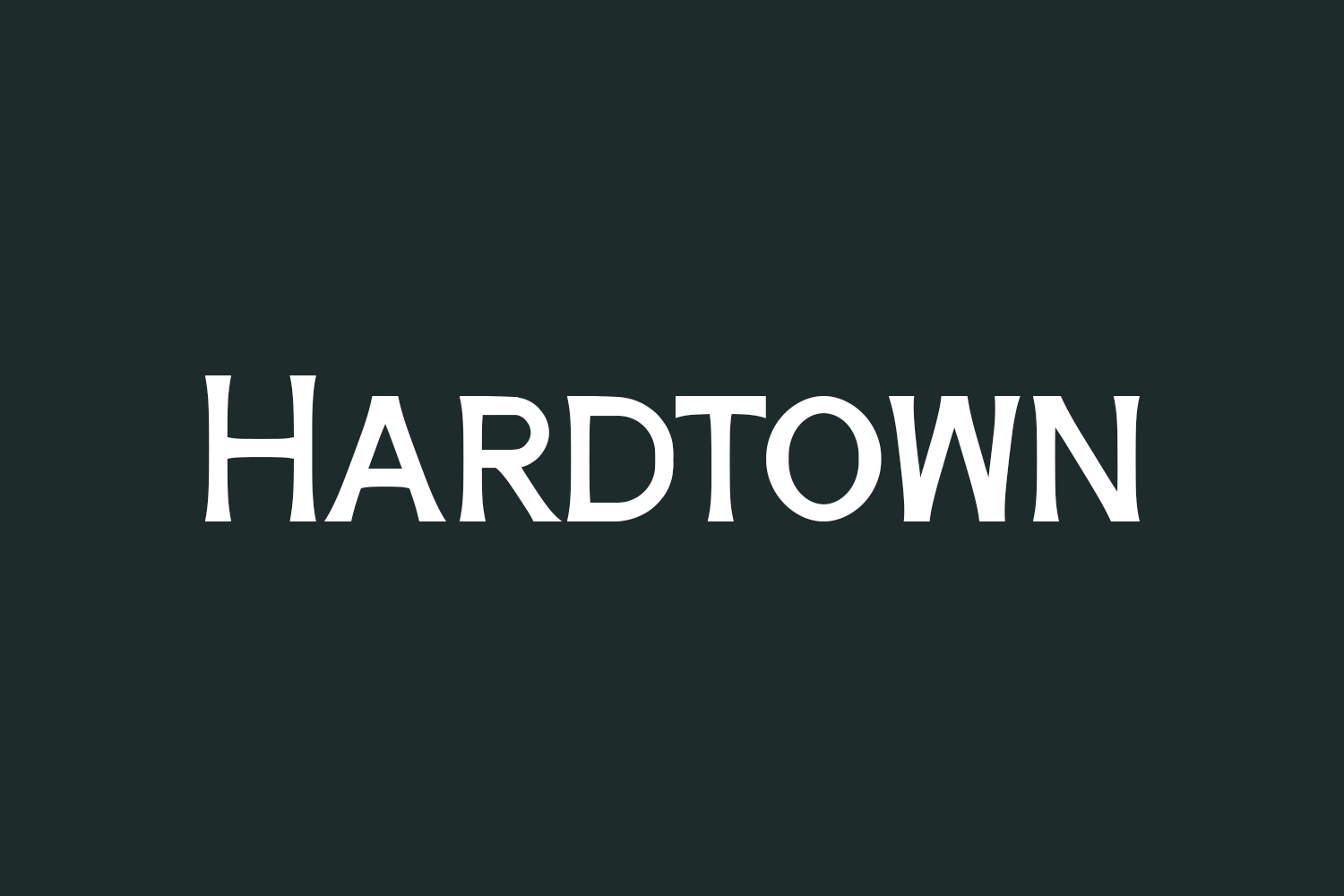
Hardtown Free Font Family is a sans serif font family. This font is very good with multilingual support and some variations (Rustic, Normal, Bold, and Italic) to complete your need. Very suitable to make branding, logo, poster, film, magazines, quotes, packaging, and others. Hardtown Free Font Family was designed by Vilogsign is free for personal use only. Please purchase the full version for commercial use.
Hardtown Regular The quick brown fox jumps over the lazy dog
Hardtown Italic The quick brown fox jumps over the lazy dog
Hardtown Bold The quick brown fox jumps over the lazy dog
Hardtown Bold Italic The quick brown fox jumps over the lazy dog
Hardtown Rust The quick brown fox jumps over the lazy dog
Hardtown Rust Italic The quick brown fox jumps over the lazy dog
Hardtown Rust Bold The quick brown fox jumps over the lazy dog
Hardtown Rust Bold Italic The quick brown fox jumps over the lazy dog